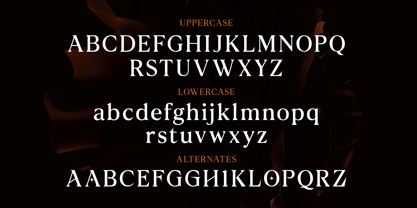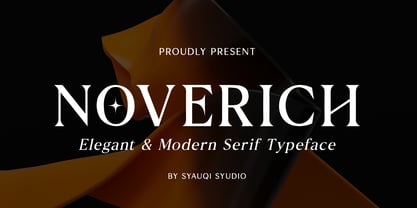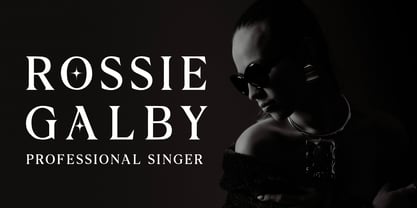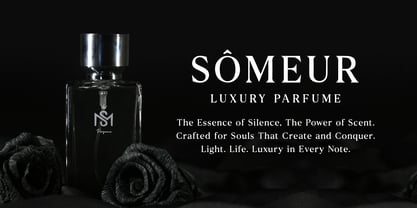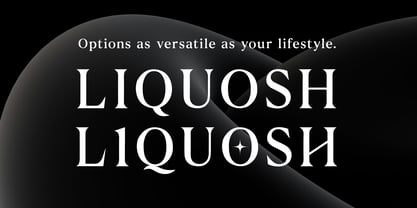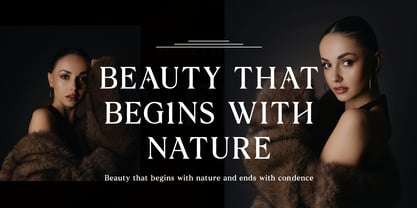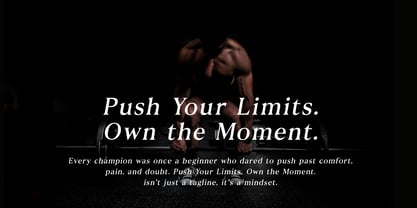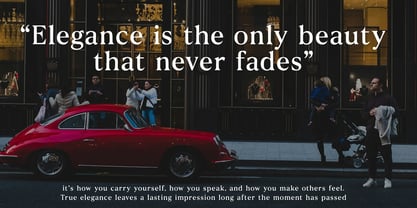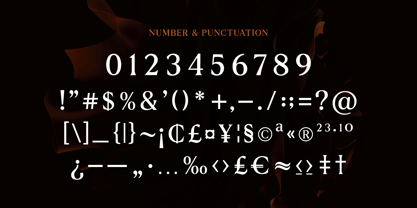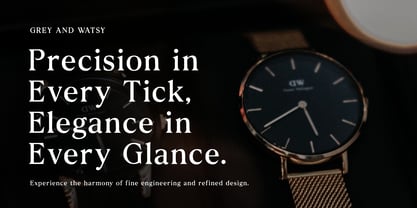
Noverich
by Syauqi Studio
The Noverich Font Family was designed by Muhammad Asroful Umam and published by Syauqi Studio. Noverich contains 6 styles and family package options.
Noverich – Elegant Modern Serif Typeface
Introducing Noverich, an elegant modern serif typeface that embodies both luxury and clarity. Designed with refined high-contrast strokes, sharp terminals, and graceful curves, Noverich strikes a perfect balance between timeless sophistication and contemporary design trends.
Its versatile elegance makes it ideal for editorial headlines, branding projects, fashion magazines, logos, invitations, luxury packaging, and more. Whether you're creating a bold visual identity or a refined typographic layout, Noverich delivers strong character and high readability across print and digital platforms.
With a full set of uppercase and lowercase letters, alternates, punctuation, and multilingual support, Noverich is crafted for designers who demand both style and functionality.